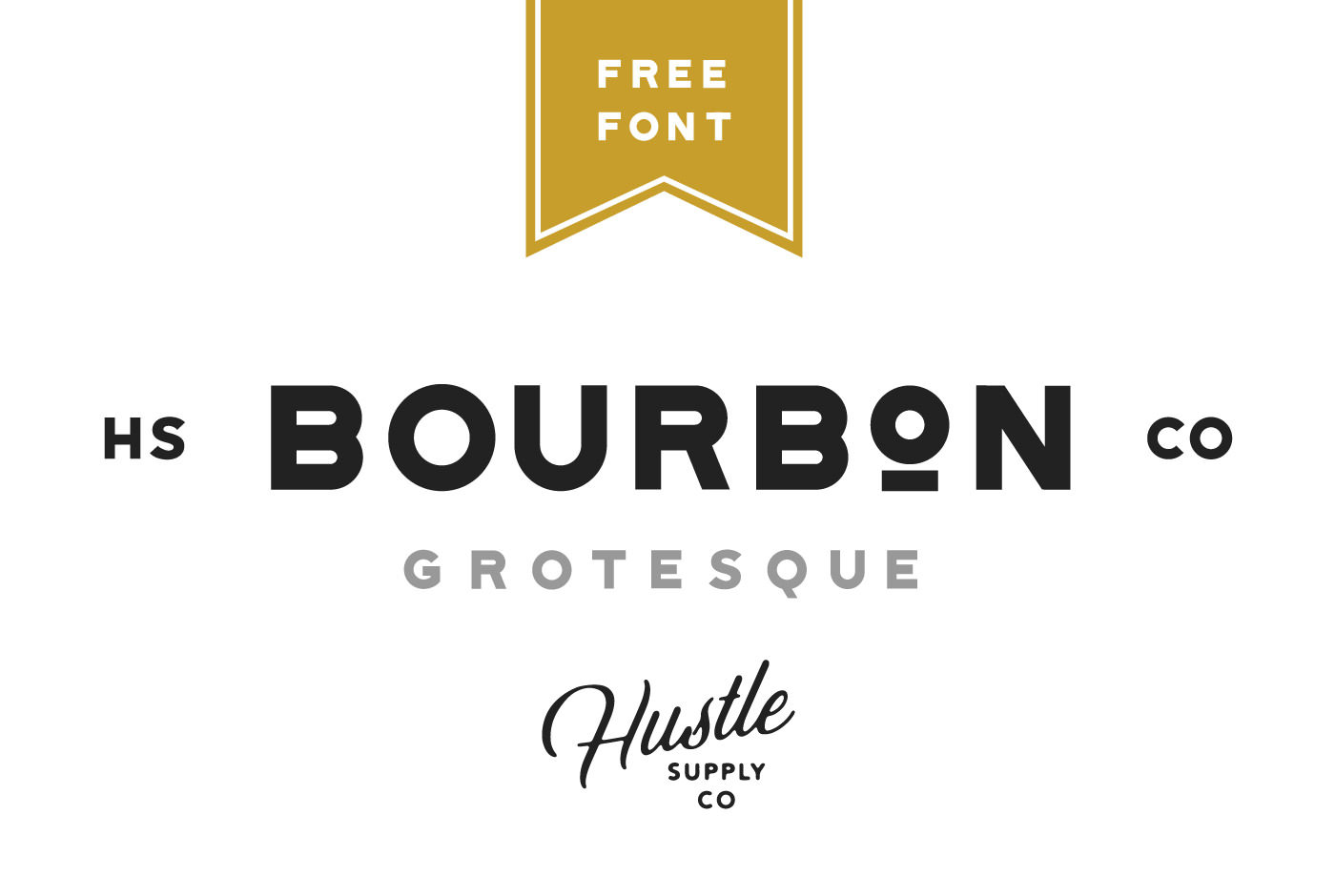
Another great freebie was just released by Jeremy Vessey, a graphic designer and typographer from Canada. The freebie comes as a free sans serif font, perfect for logo design and branding projects. It comes in one weight only, a thicker version which can help you make a bold and confident statement with your projects.
The Bourbon Grotesque font comes with uppercase letters only, numbers and a couple of punctuation marks. I am not completely sure yet where we stand with the license, but I’m thinking that it’s a free for personal and commercial use font. But for more info read here or contact the creator of the font.